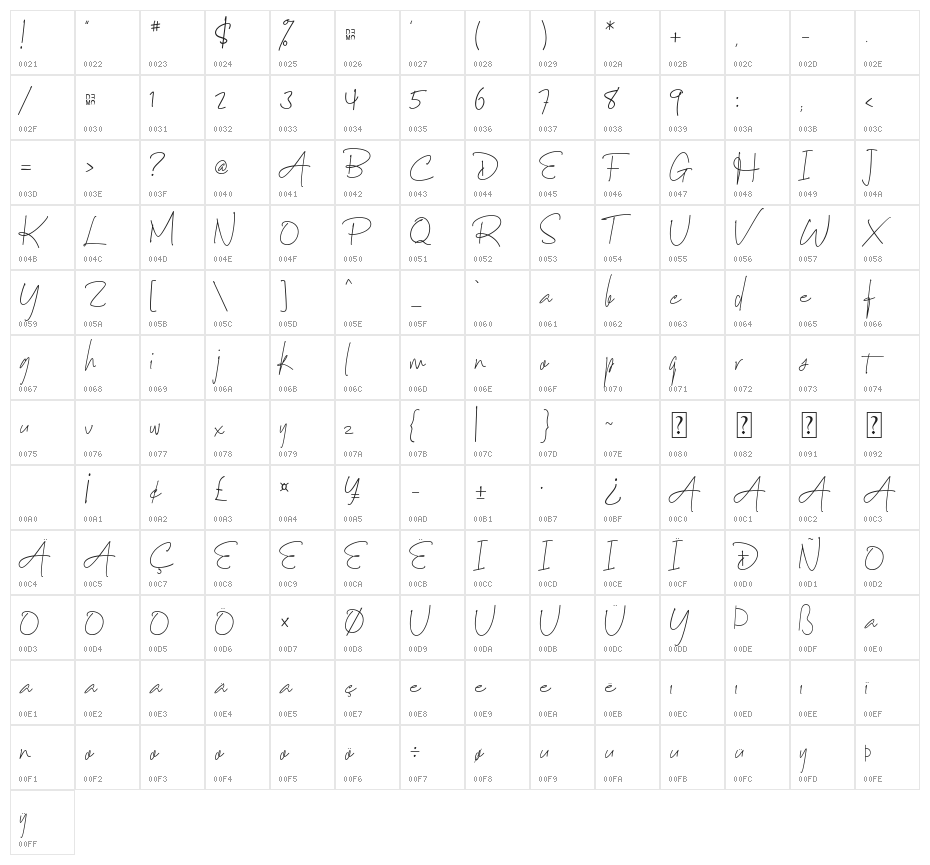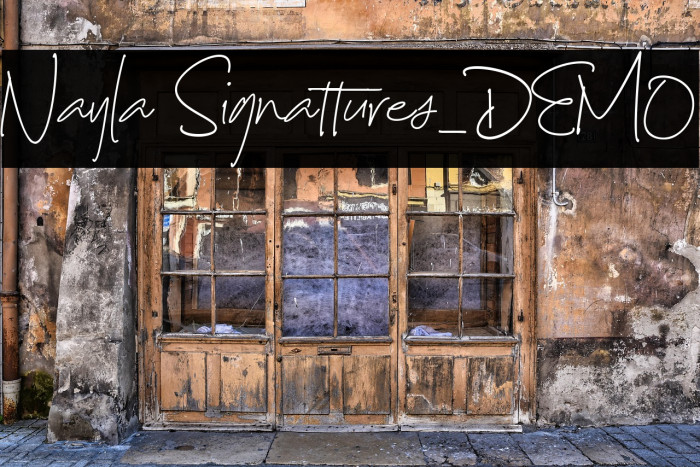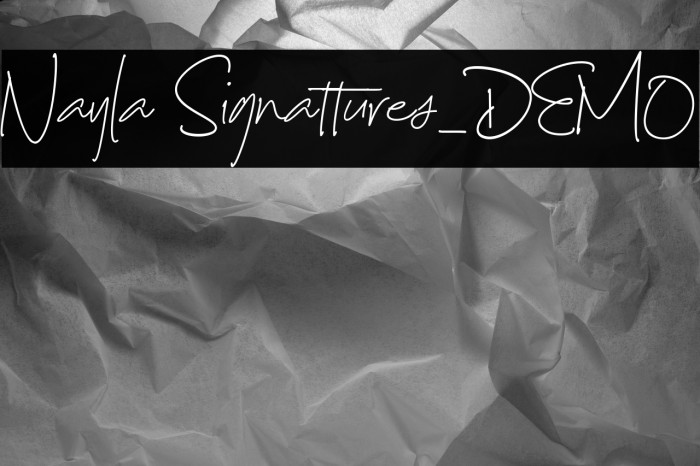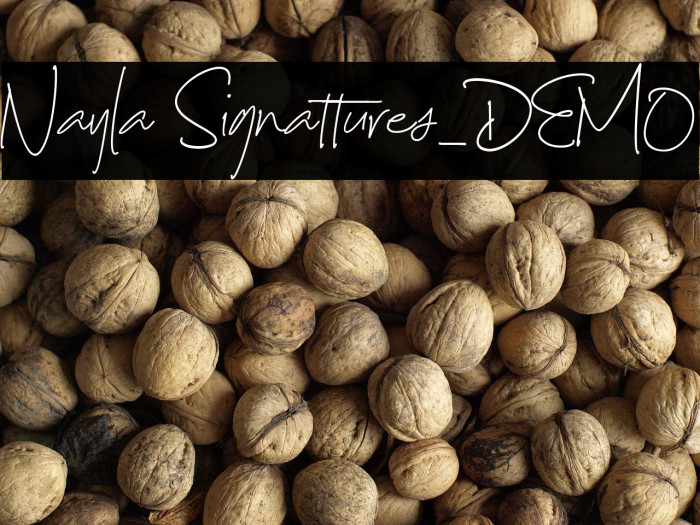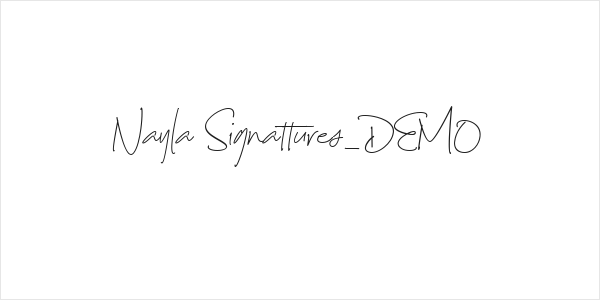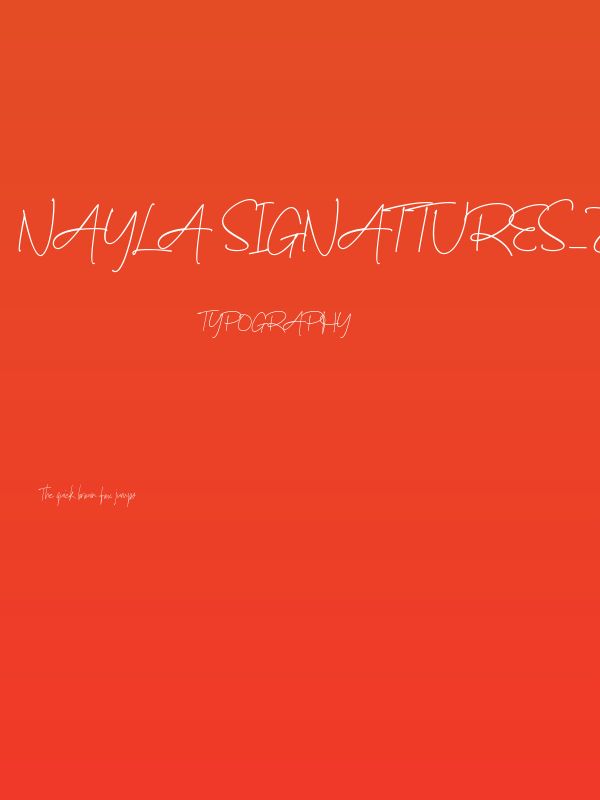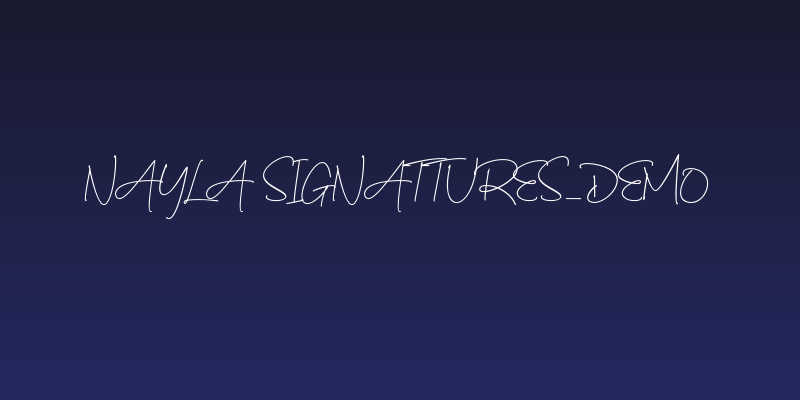
Nayla Signattures_DEMO Font
Nayla Signattures_DEMO Description
This font features a distinctive handwritten style with a fluid and elegant appearance. The uppercase letters are tall and slightly narrow, with a graceful flow that mimics natural handwriting. The lowercase letters maintain a consistent style, with some characters extending below the baseline, adding to the font's dynamic look. Numbers and special characters are designed to match the overall aesthetic, providing a cohesive appearance across all elements. The strokes are thin, giving the font a delicate and sophisticated feel, suitable for projects that require a personal touch.
| Overall Style | Elegant, Handwritten |
| Proposed Projects | Ideal for wedding invitations, personal branding, greeting cards, and any project that requires a personal, elegant touch. |